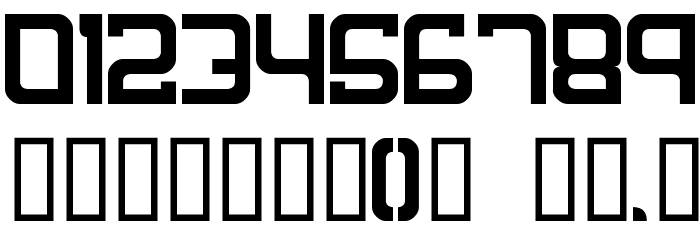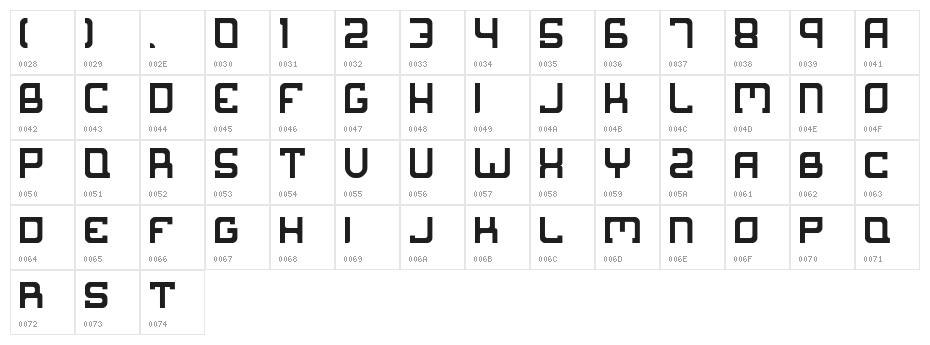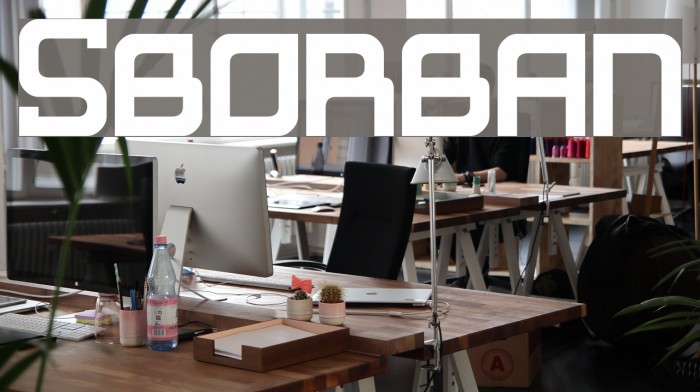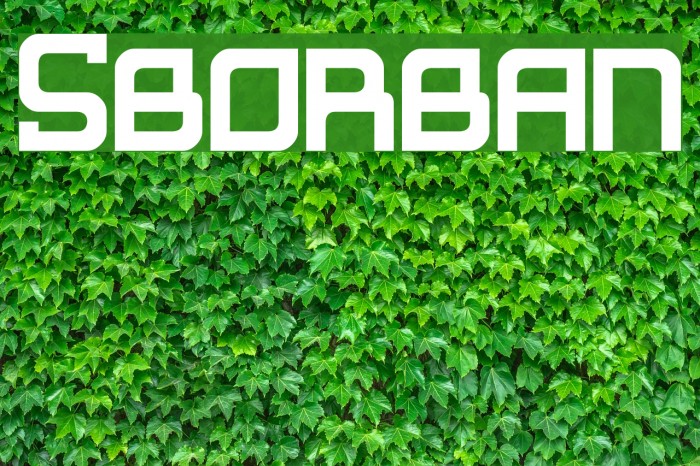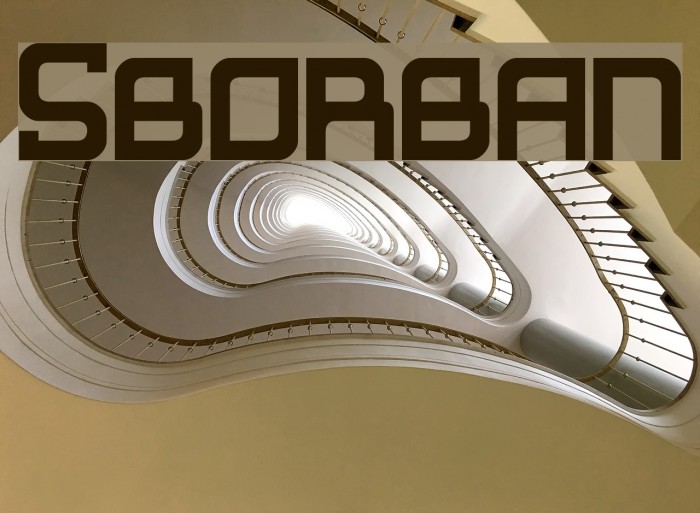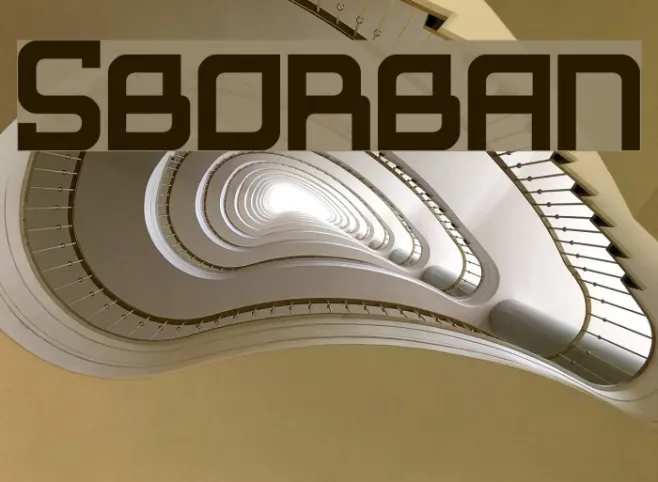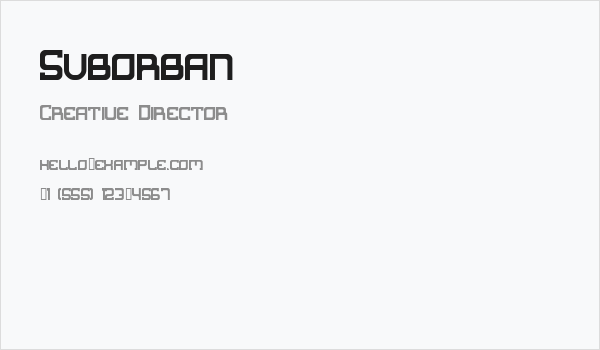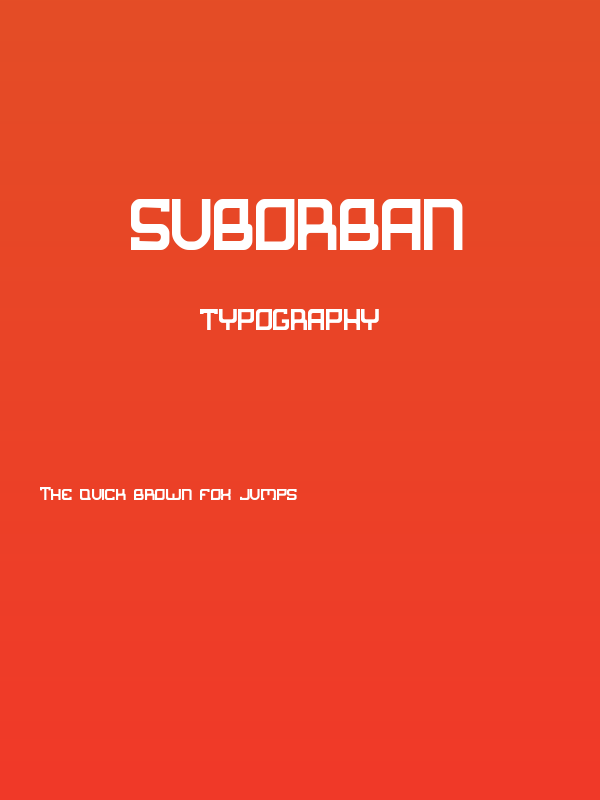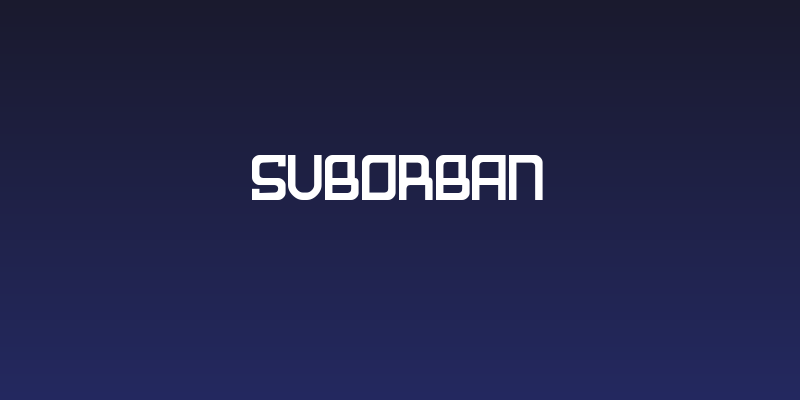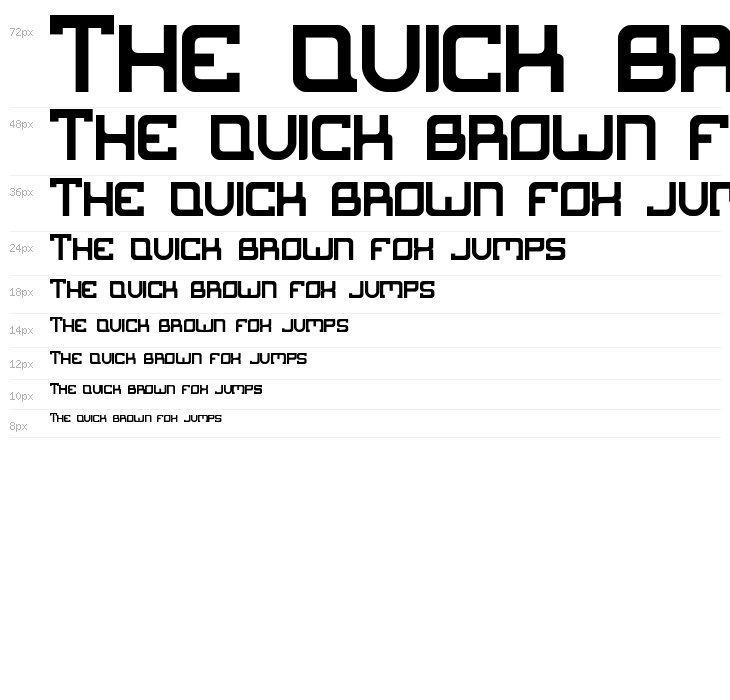
Suborban Font
Suborban Description
This font features a bold, geometric design with a distinctly modern and futuristic aesthetic. The characters are constructed with thick, uniform strokes and sharp angles, giving them a blocky appearance. The uppercase letters are particularly striking, with a consistent height and width that creates a cohesive look. The lowercase letters maintain the same geometric style, ensuring readability while adding a unique flair. The numerals are equally bold, with a design that complements the letters. Special characters are included, maintaining the same stylistic elements. Overall, this font is ideal for projects that require a strong, impactful visual presence.